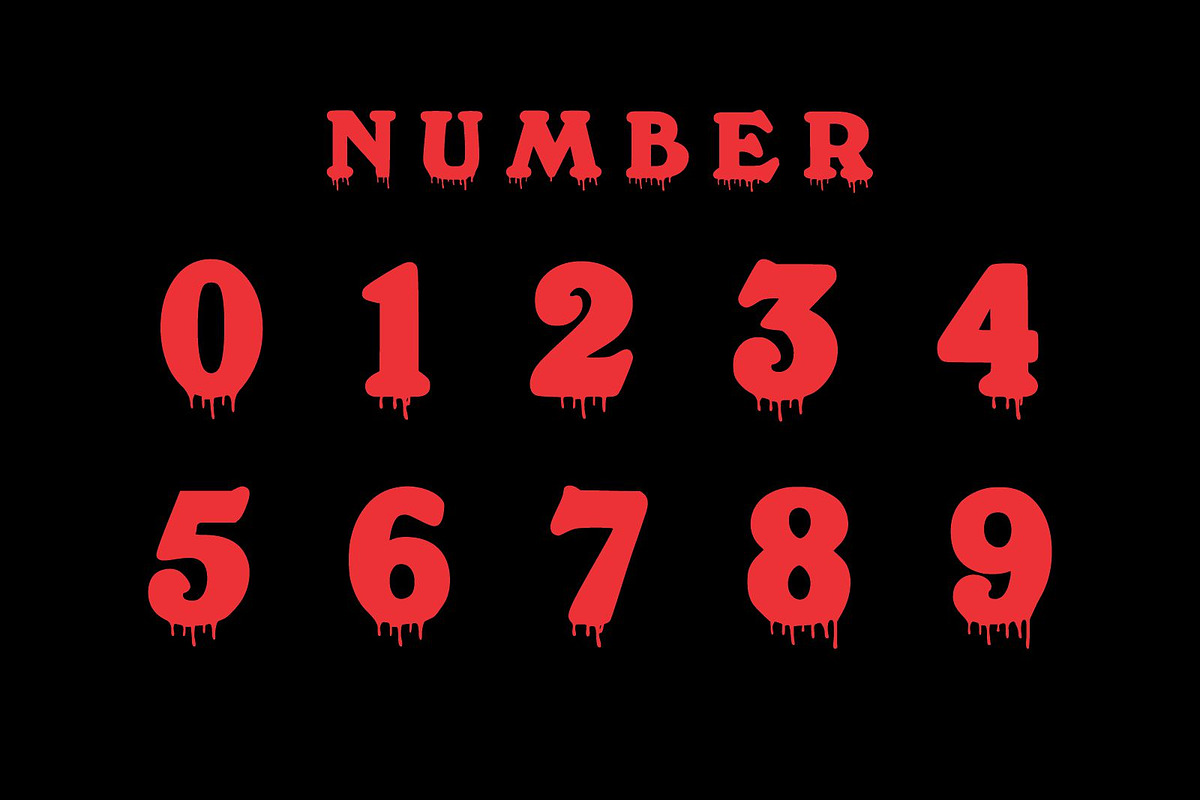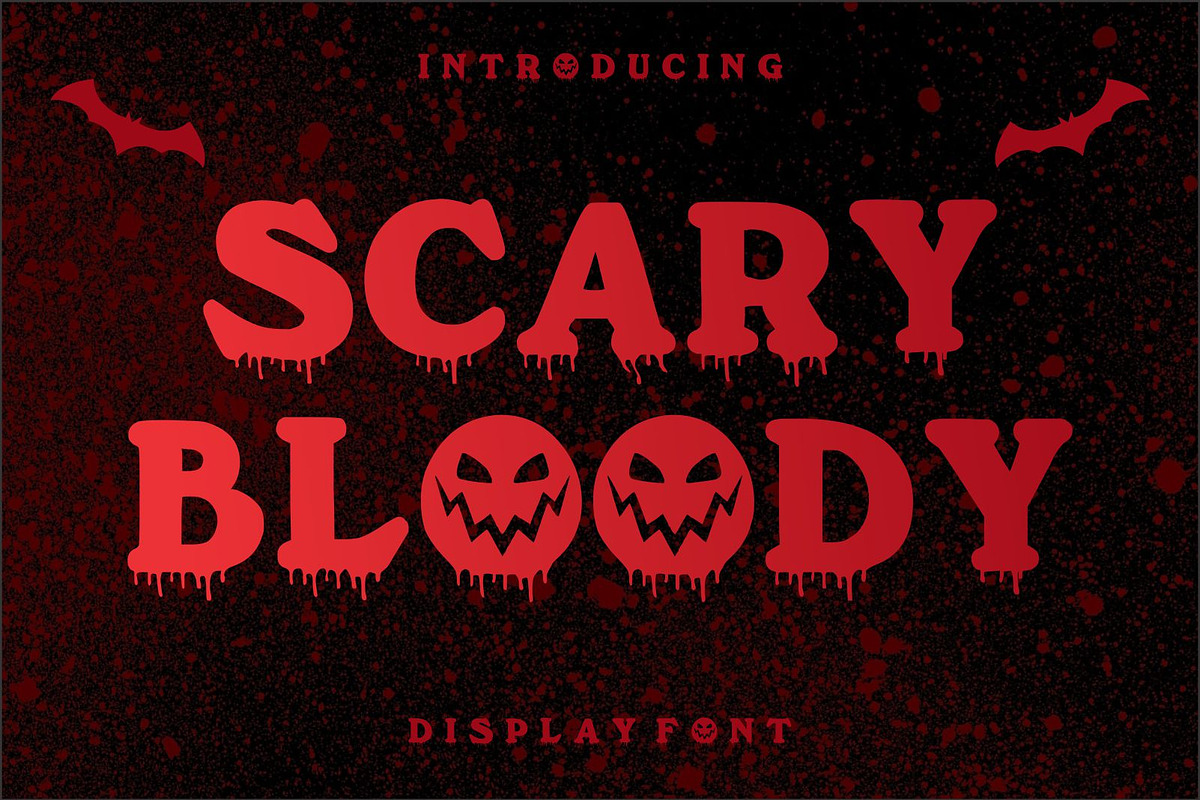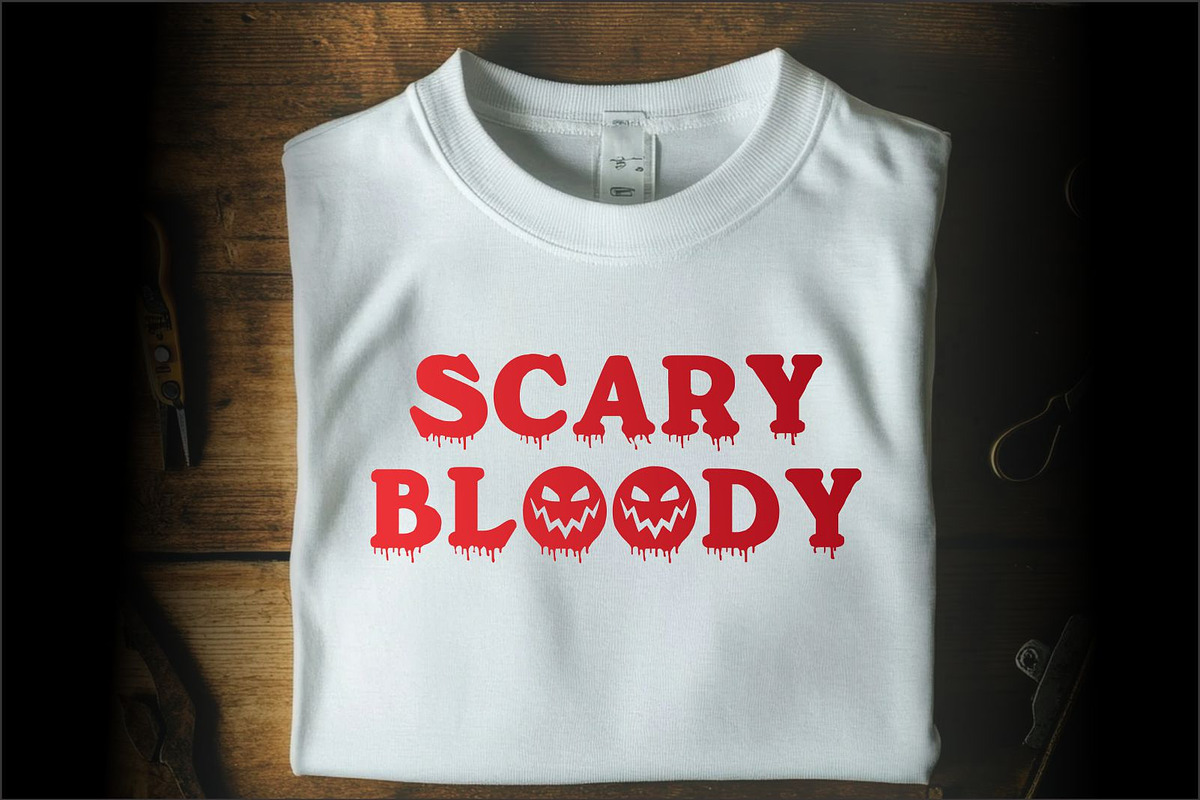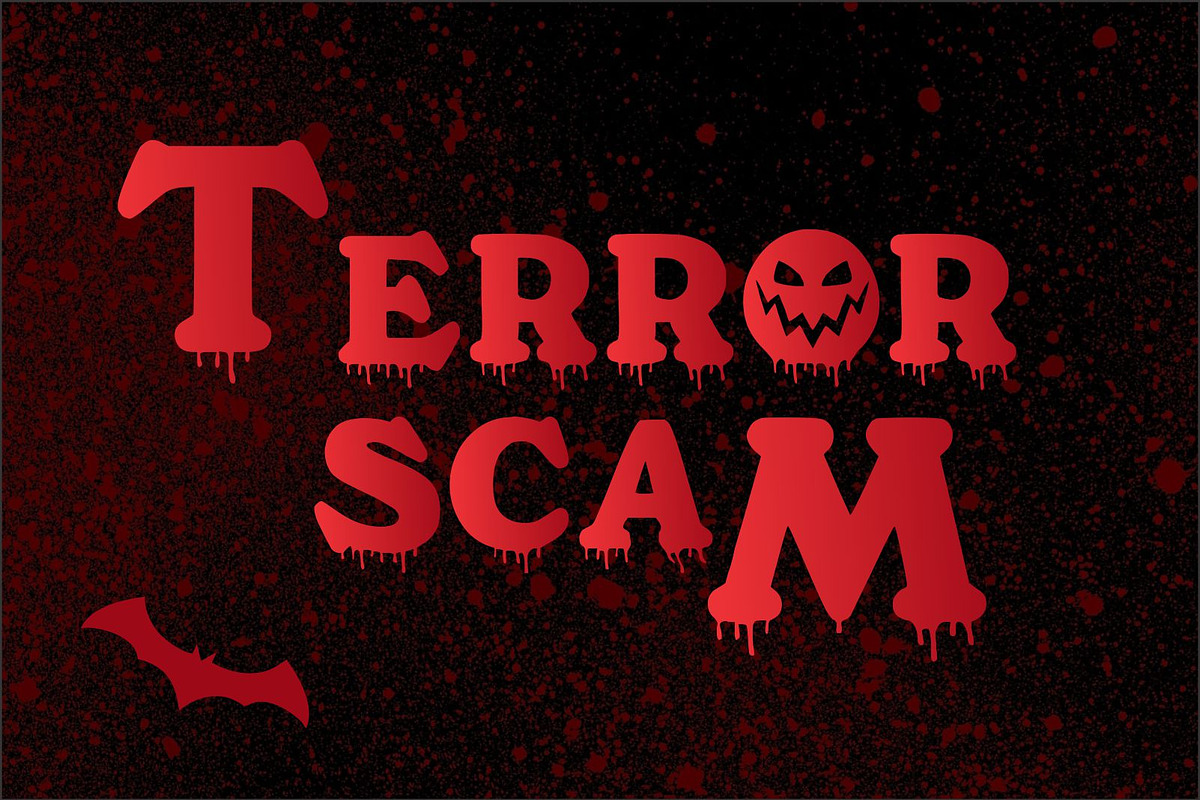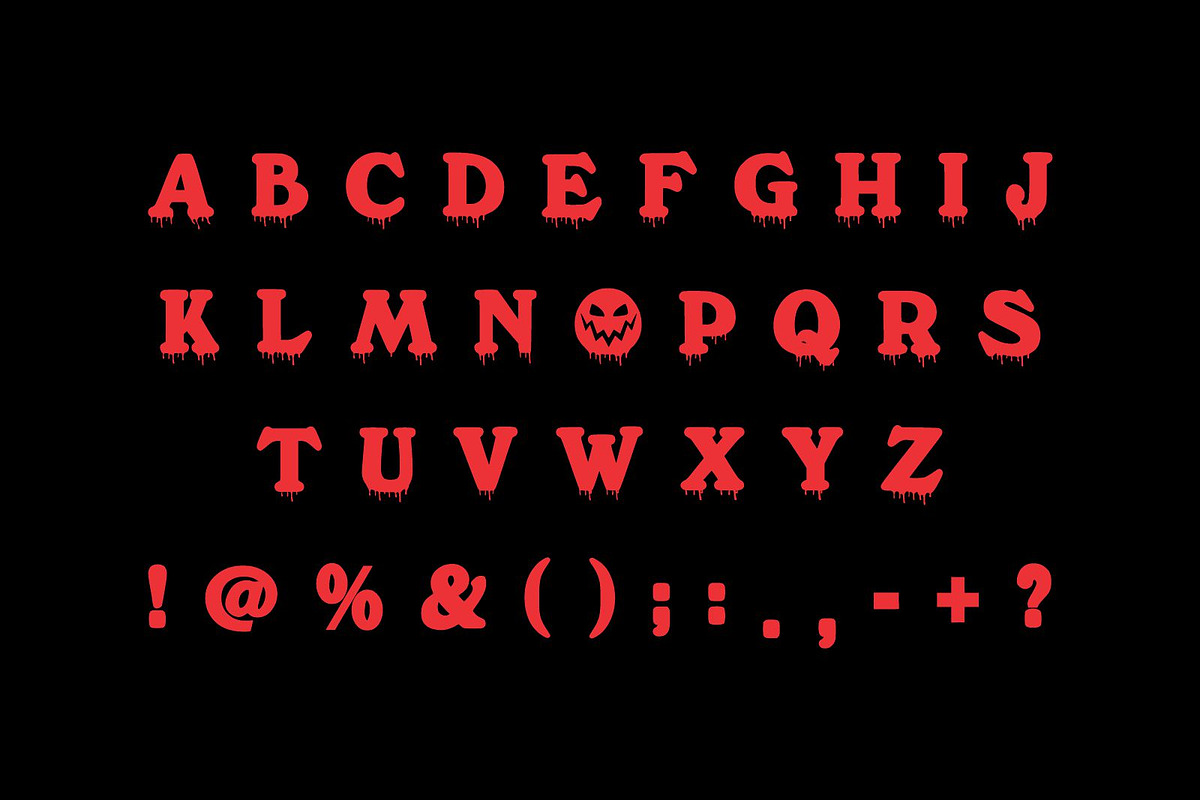
Scary Bloody
Scary Bloody is a cool and elegant Halloween font display font. No matter the topic, this font will be an incredible asset to your fonts’ library, as it has the potential to elevate any creation.